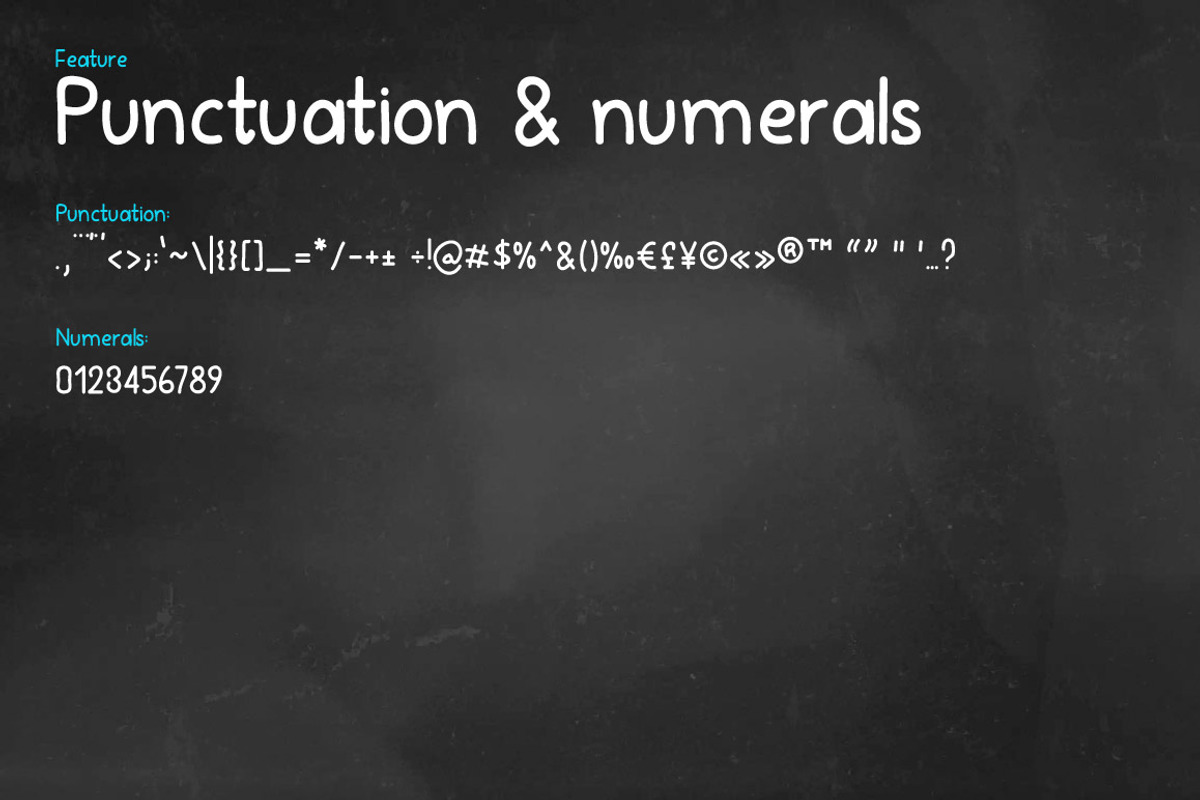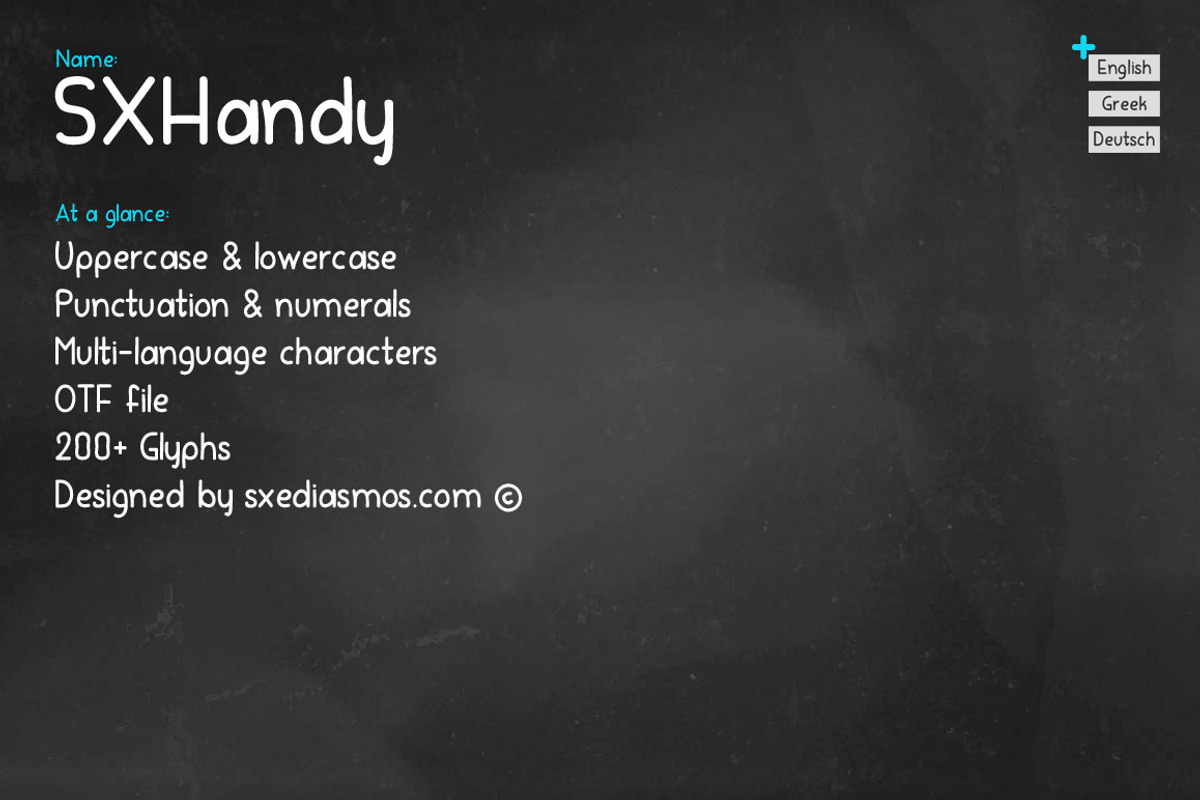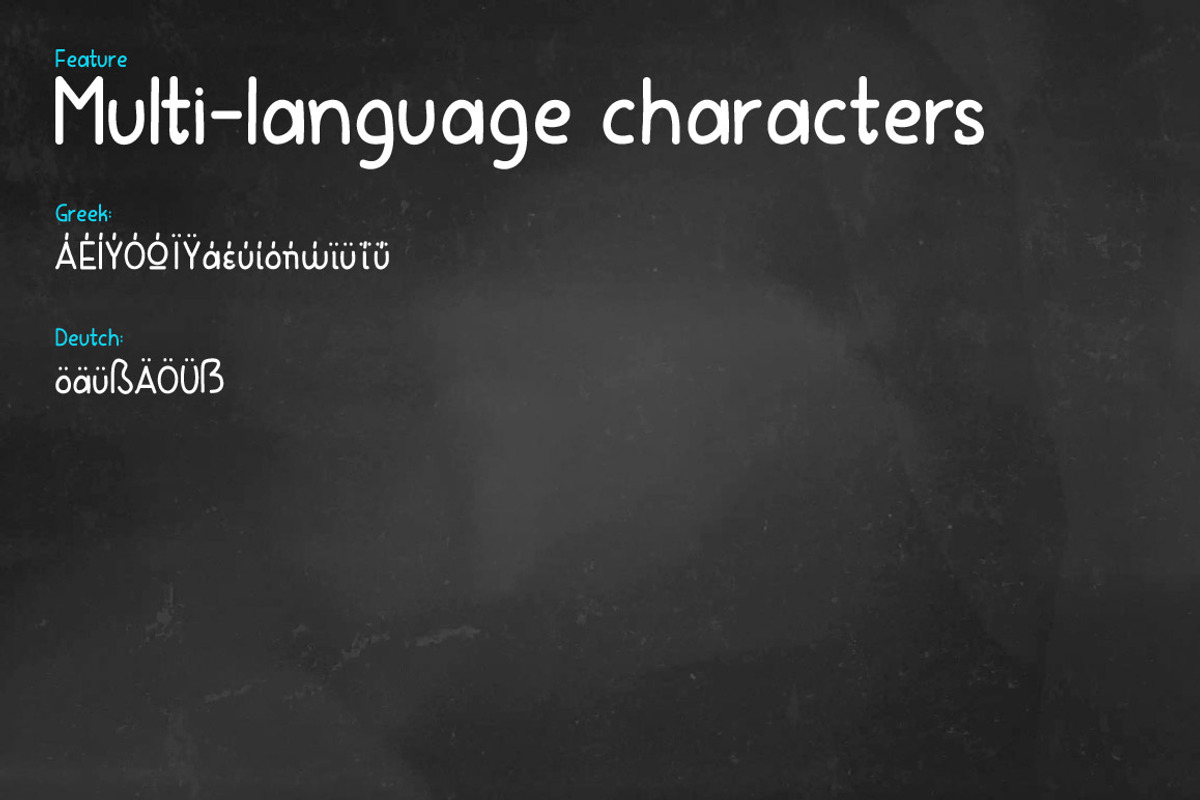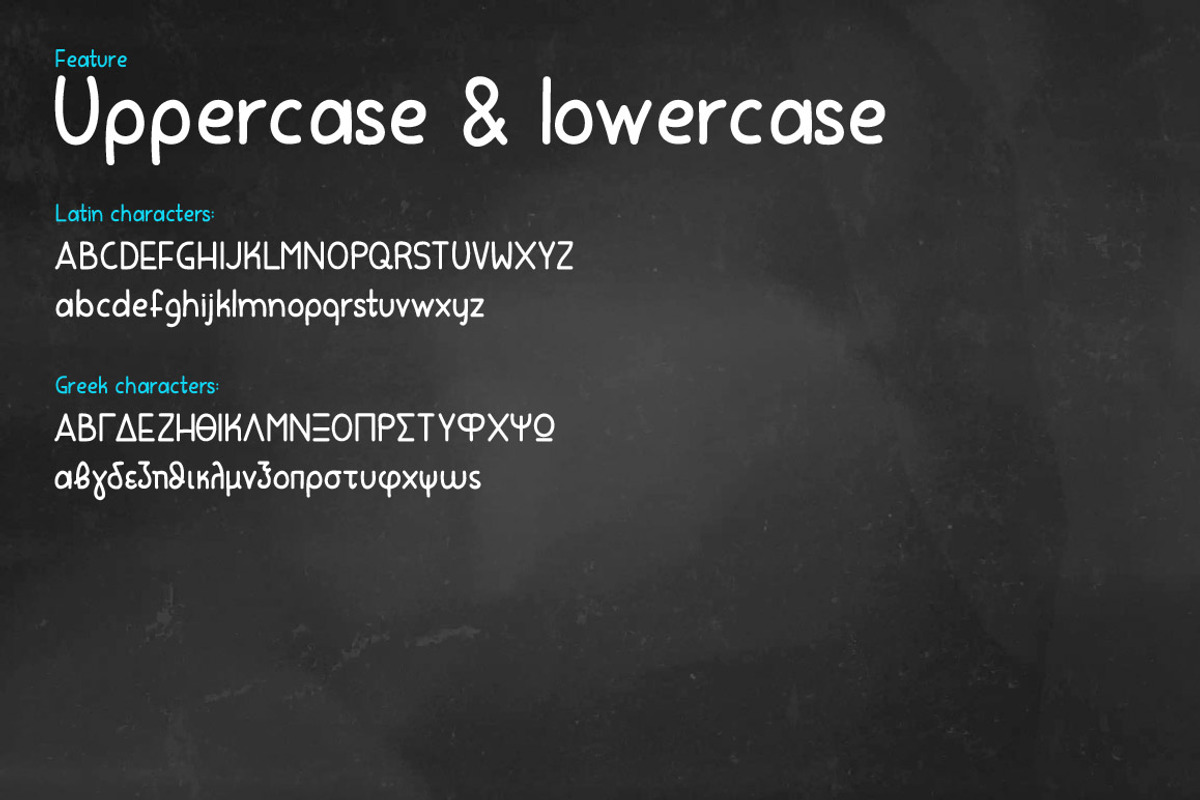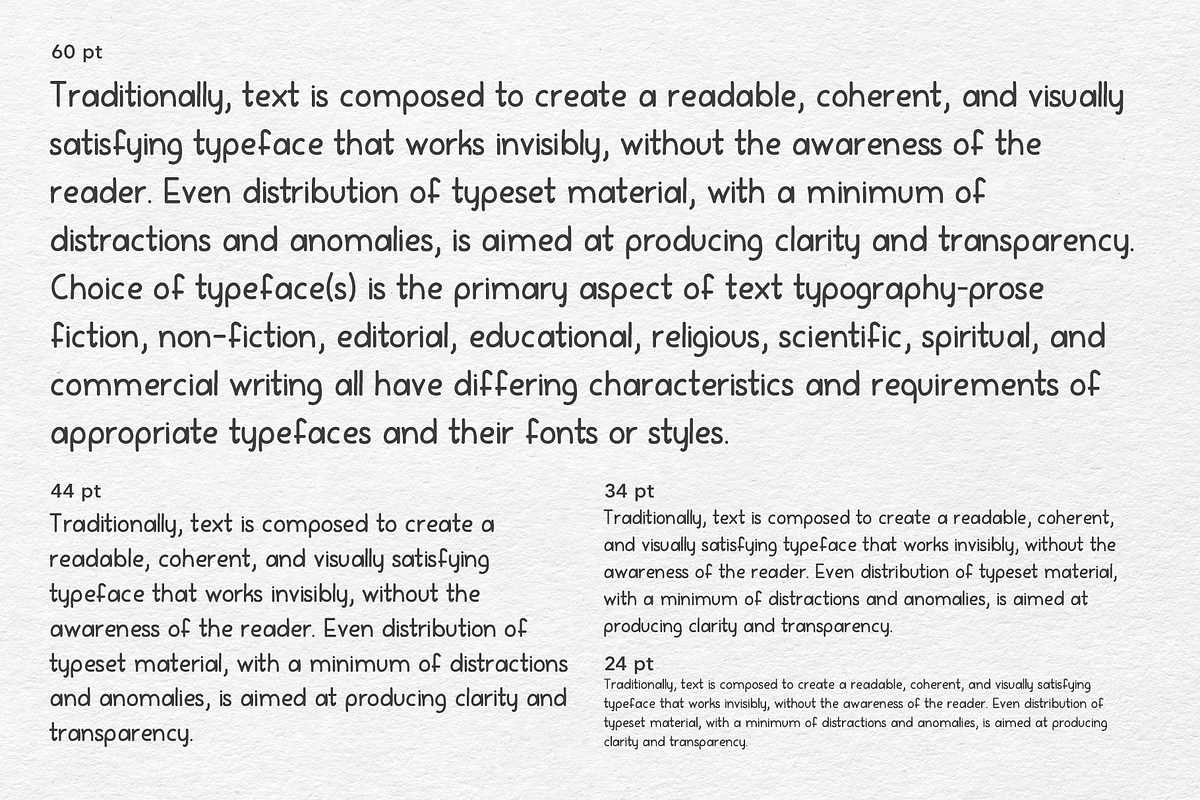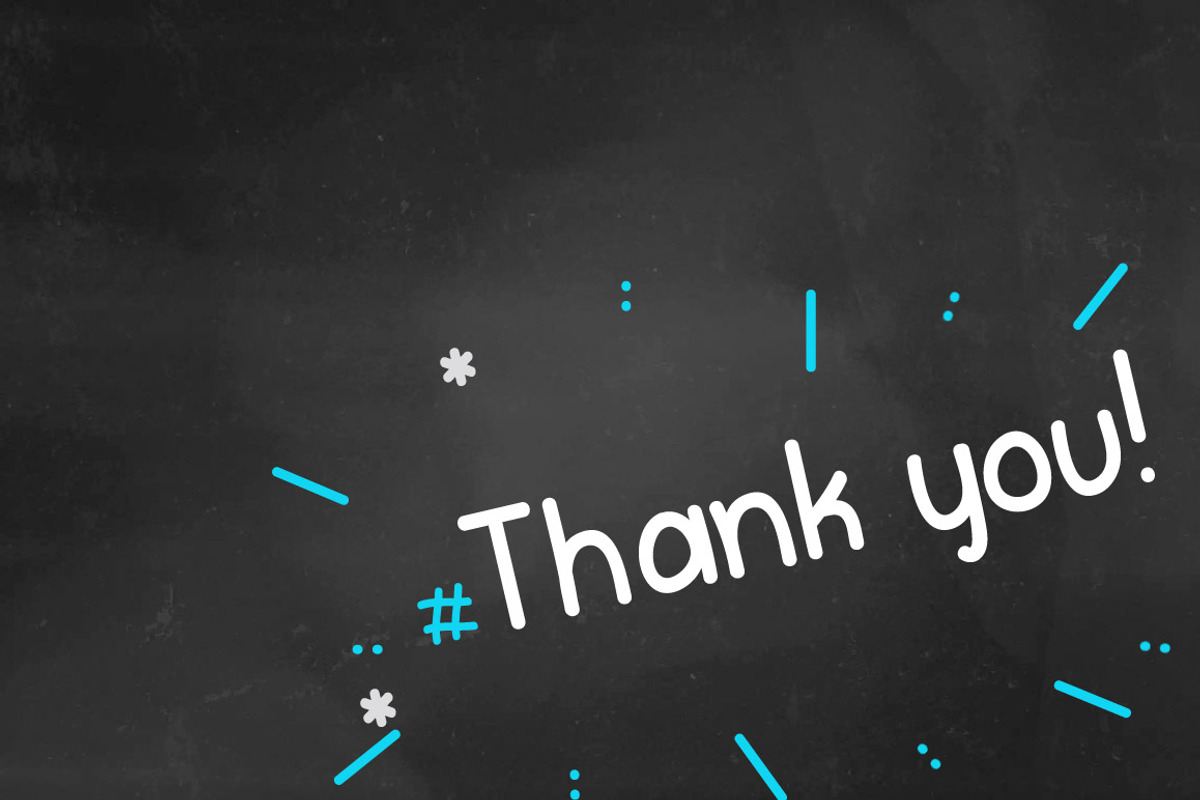
SXHandy - Handwritten Font
SXHandy - Handwritten Font by sxediasmos is a font selected for branding, posters, packaging, typography.
- SXHandy is a regular handwritten font with Greek, Latin and Deutch characters.
- SXHandy Regular
SXHandy - Handwritten Font by sxediasmos fits naturally into Branding, posters, packaging, typography.